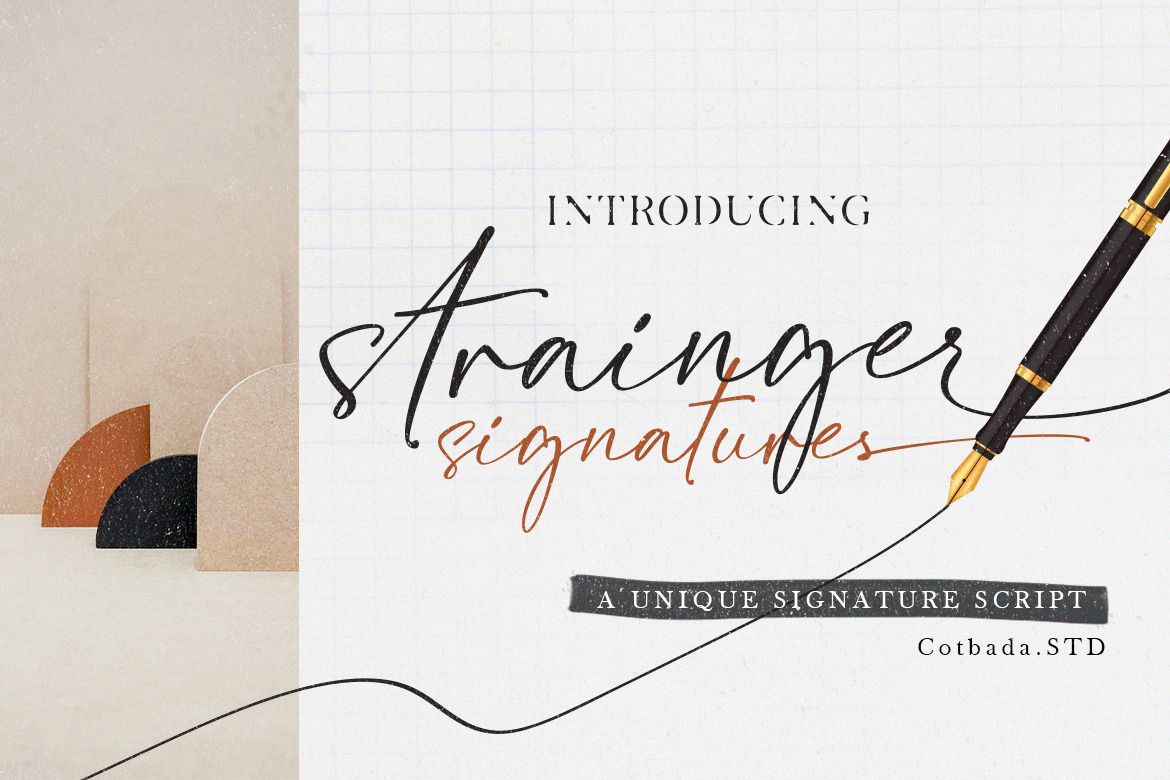
Strainger Signatures Font
Strainger Signatures Font is a unique, cool and modern handwritten font. It's hand look style makes it perfect for use in all your design projects be it logos, signatures, labels, packaging design, blog headlines.